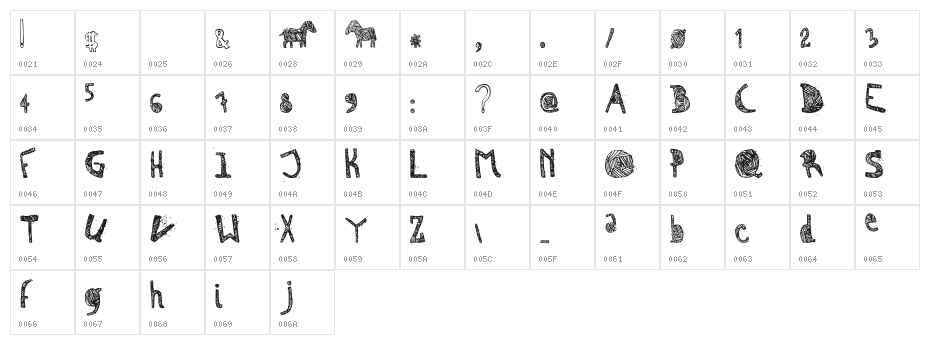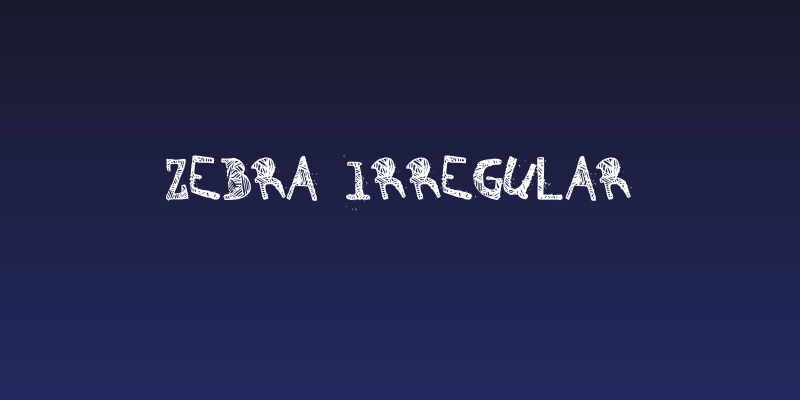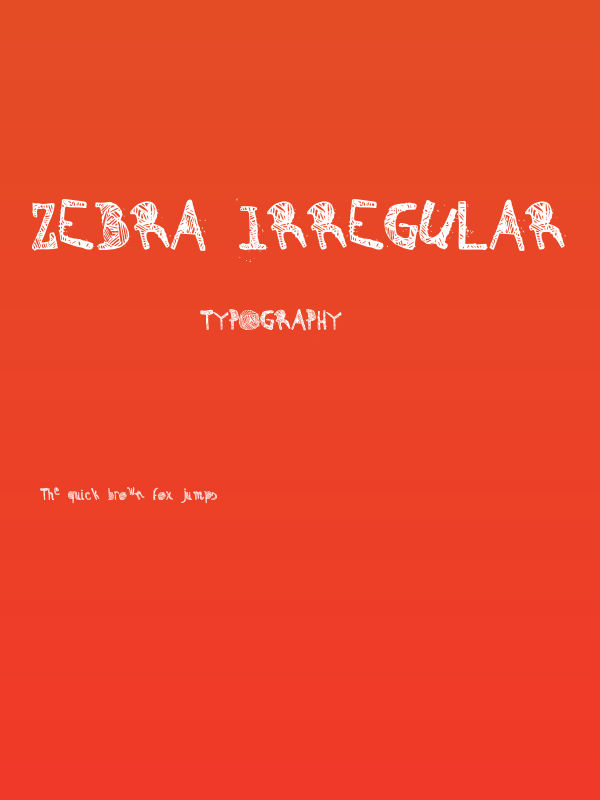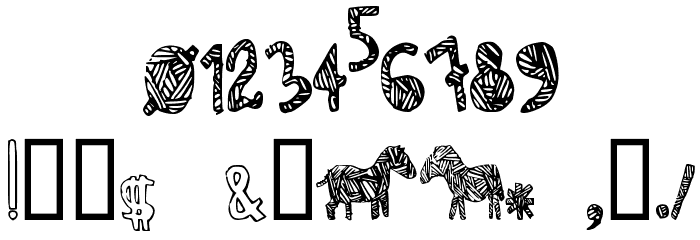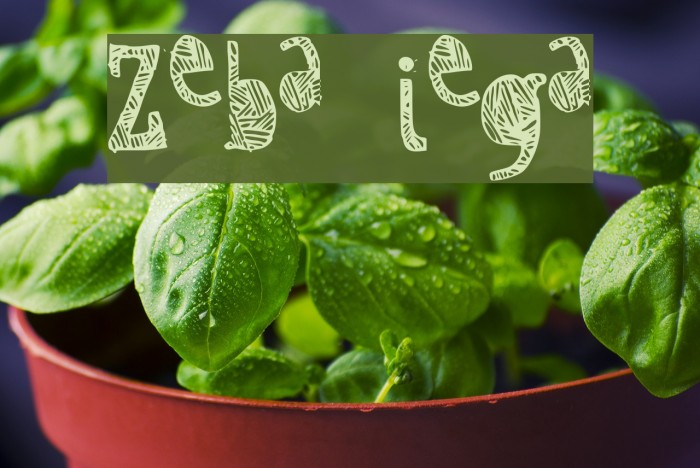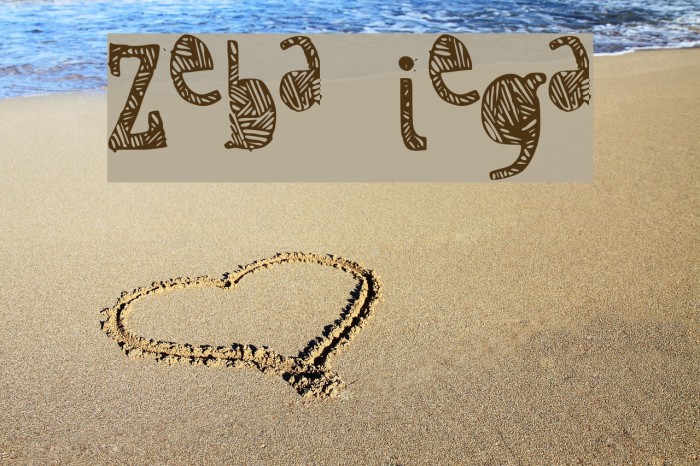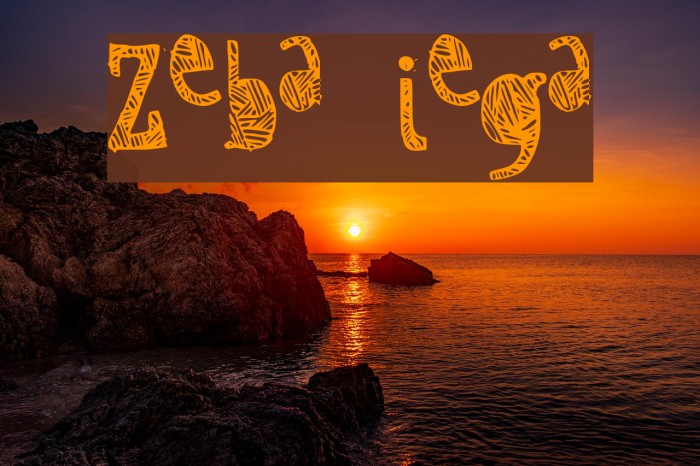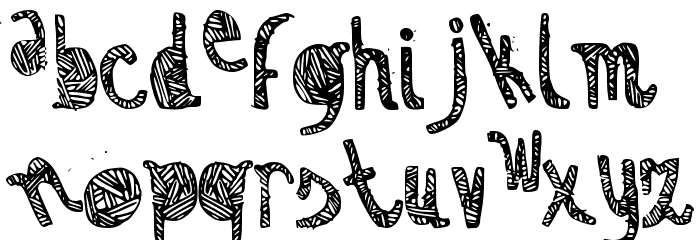
Zebra irregular Font
This font features a playful and irregular design, reminiscent of zebra stripes. Each character is filled with a pattern that mimics the natural, uneven lines found on a zebra's coat, giving it a unique and artistic flair. The uppercase and lowercase letters maintain a consistent style, with varying thickness and angles that add to the whimsical nature of the font. Numbers and special characters are similarly designed, ensuring a cohesive look throughout. The font's distinct style makes it stand out, perfect for creative and unconventional projects.
| Proposed Projects | Ideal for children's books, creative posters, playful branding, and artistic projects. |